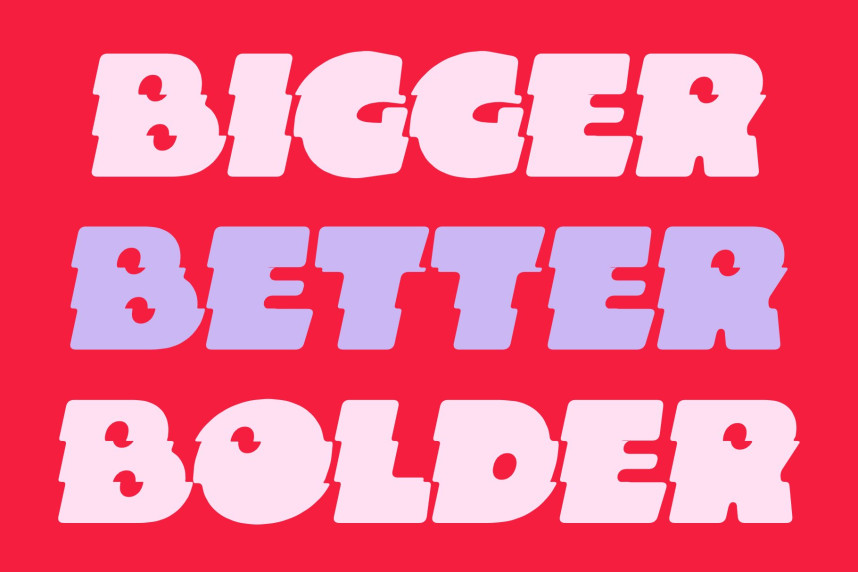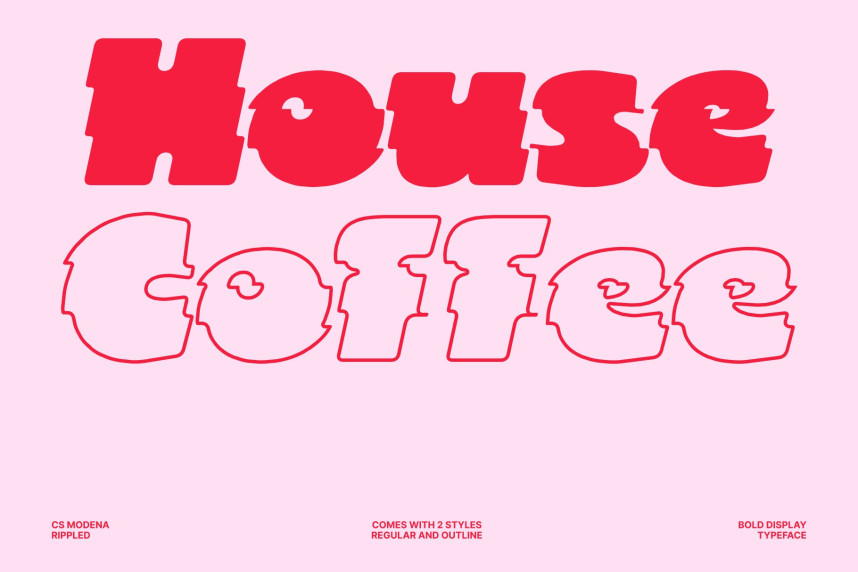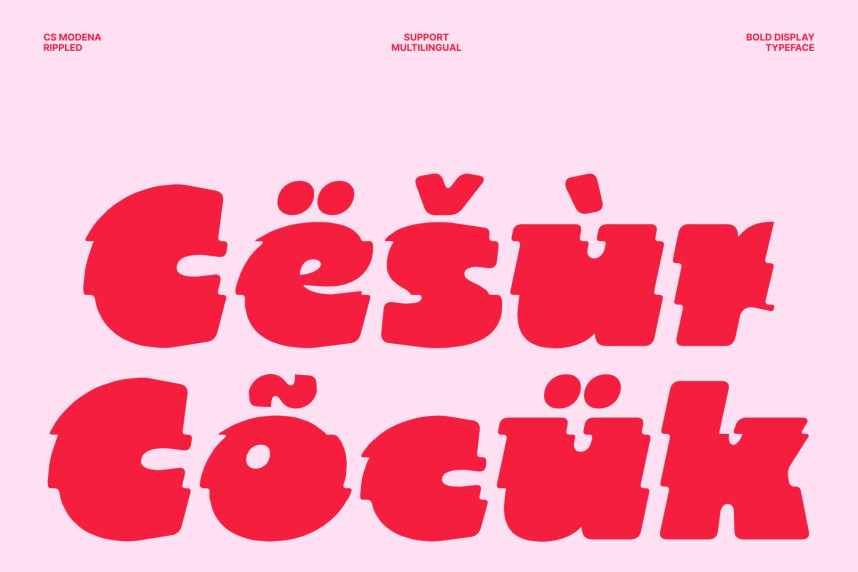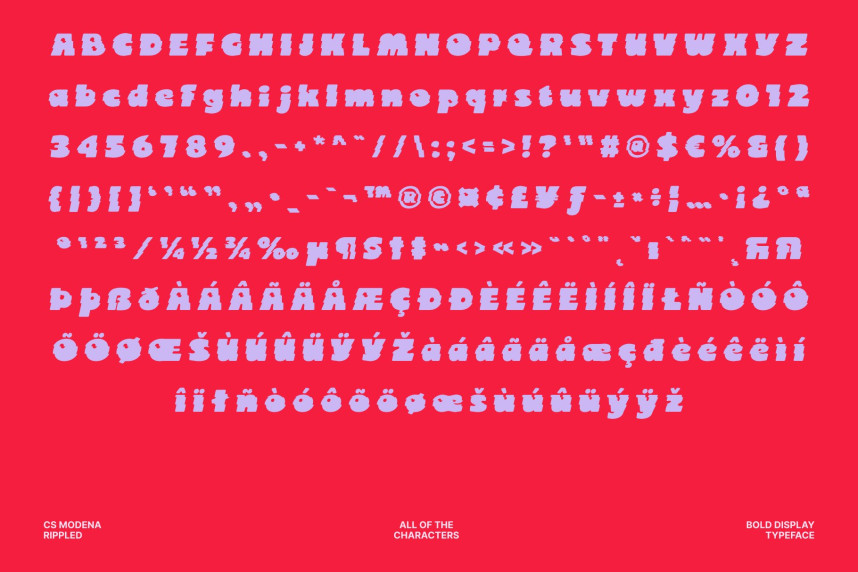
CS Modena Rippled Font
CS Modena Rippled Font – Bold Font with Funky Liquid Charm
Classic Sans-Serif Display with Bold Presence
This is a bold sans serif display font designed to deliver strong visual impact through clean shapes and confident construction. Its thick letterforms create a commanding presence that instantly captures attention while maintaining a polished and modern appearance. The balance between geometric structure and expressive styling gives the font a bold personality that feels both professional and energetic.